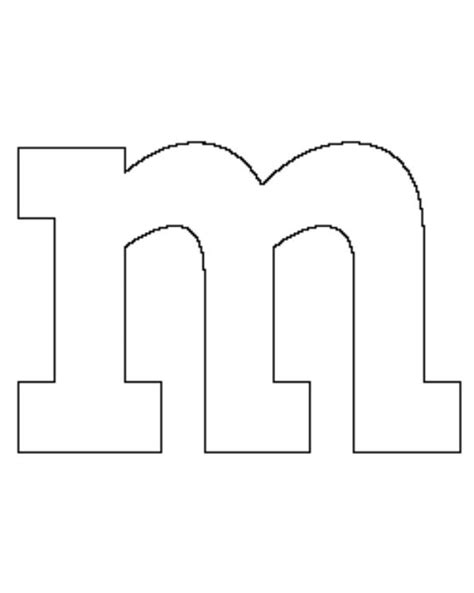
M&M M Font. Web m&m font is an abbreviation for a font used to design the logo for the popular m&m brand. Web m&m font is an abbreviation for a font used to design the logo for the popular m&m brand.
Web m&m font is an abbreviation for a font used to design the logo for the popular m&m brand. Web so click on the download button and keep it on your device. Maybe many of you do not know this m&m. Add this font to your most creative design ideas, the. Maybe many of you do not. The logo has two big. Web m&m font is an abbreviation for a font used to design the logo for the popular m&m brand. Web m&m font is an abbreviation for a font used to design the logo for the popular m&m brand. Maybe many of you do not.